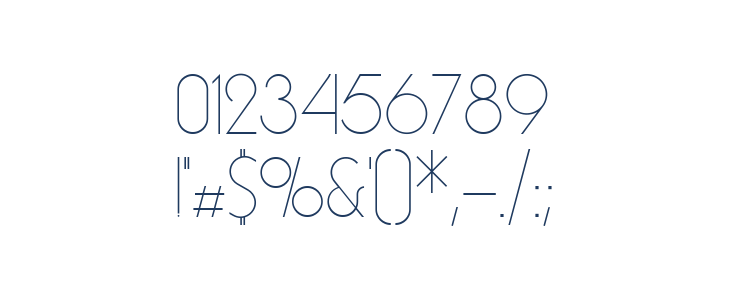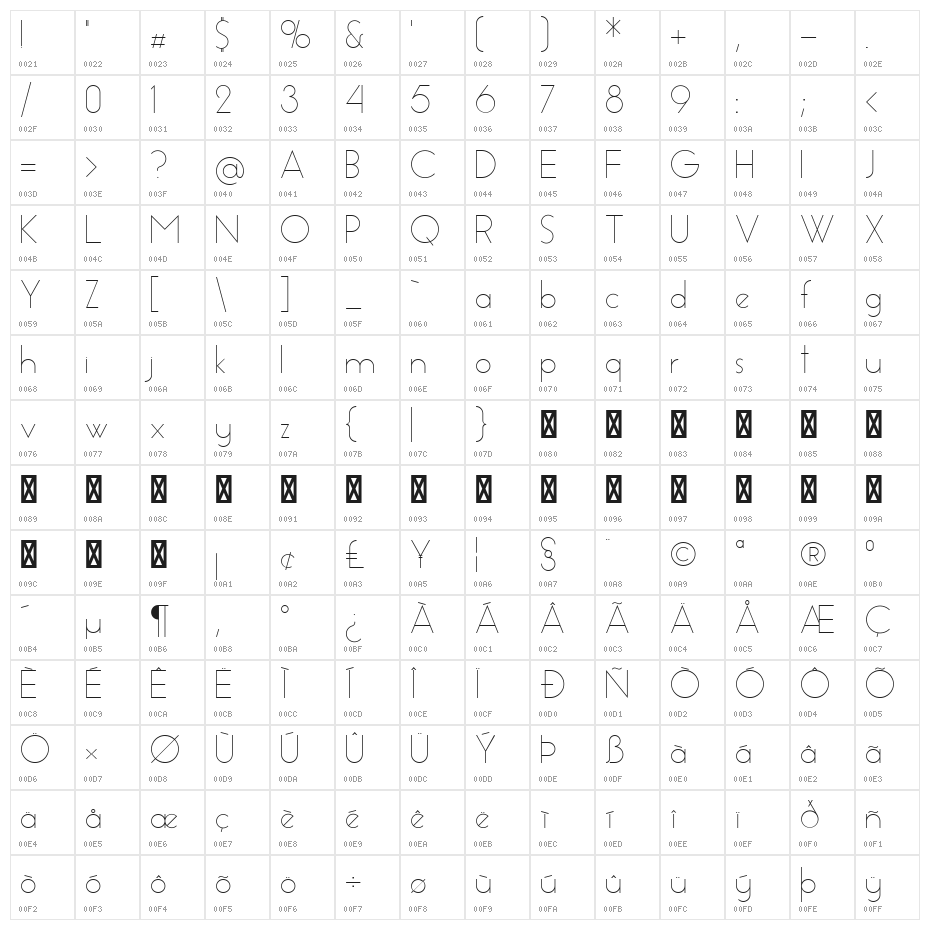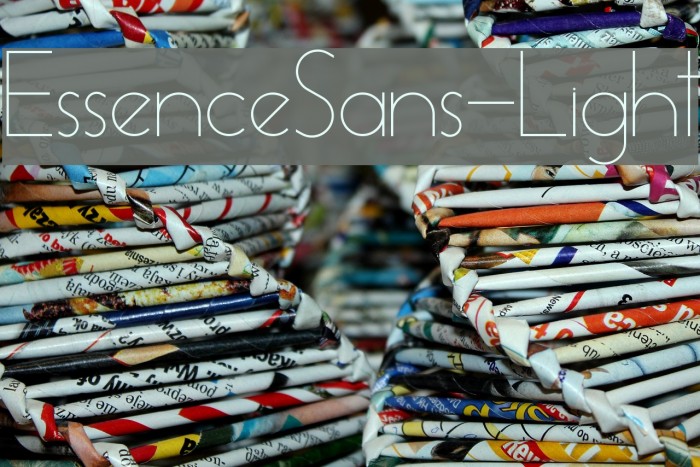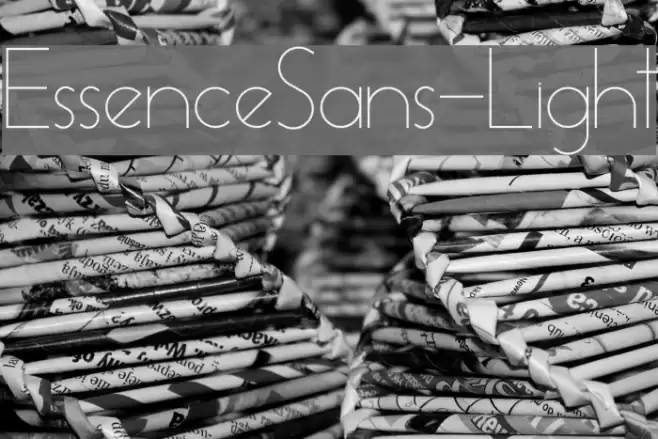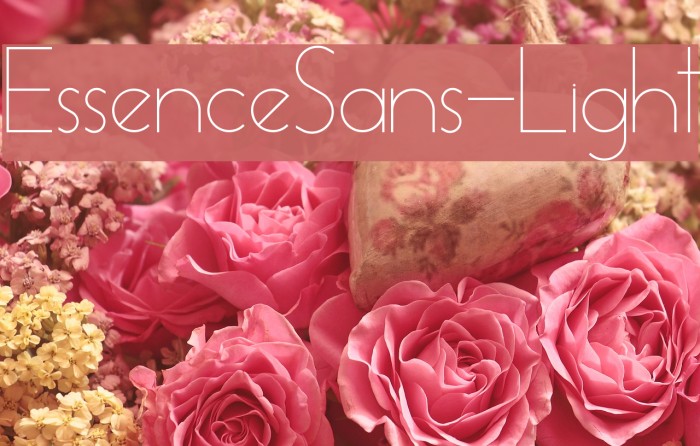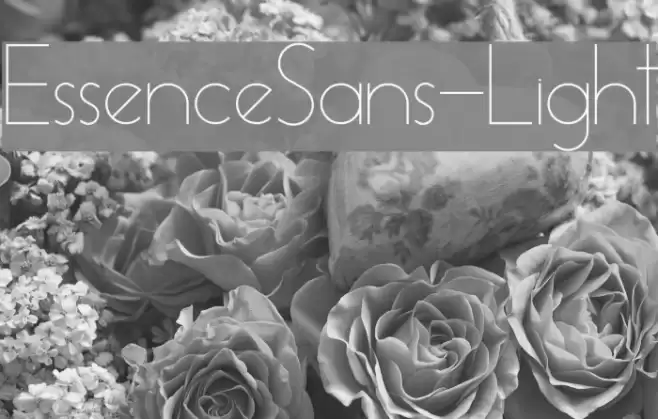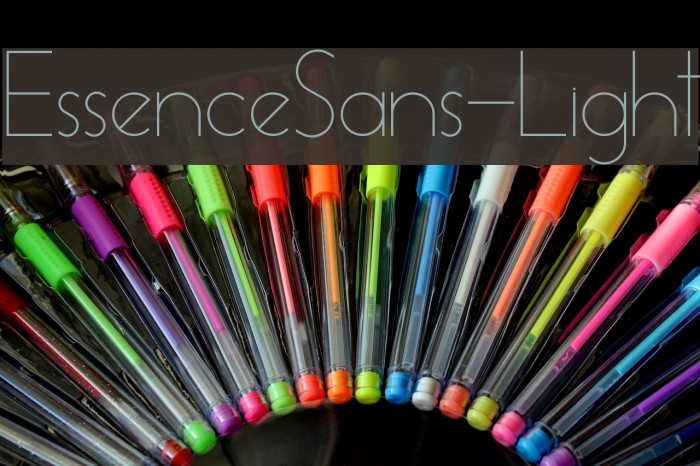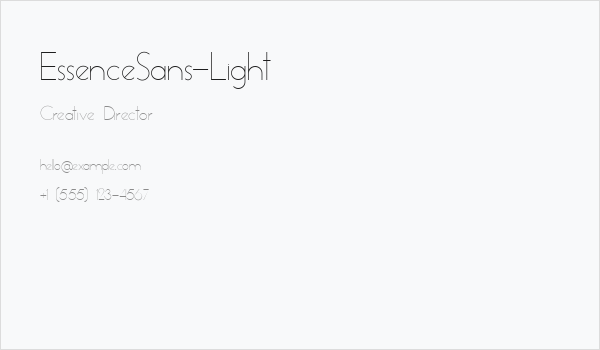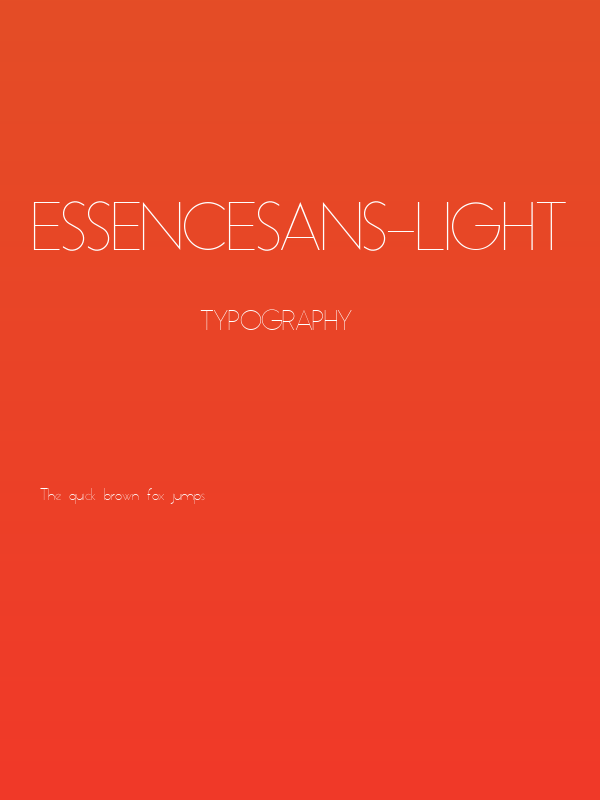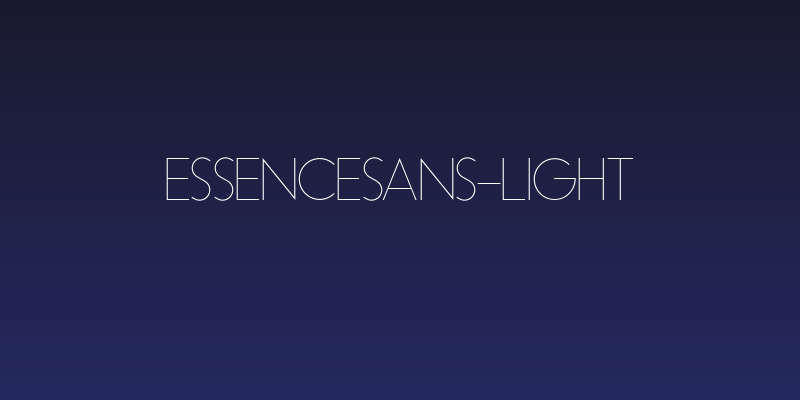
EssenceSans-Light Font
EssenceSans-Light Description
This font features a sleek and minimalist design, characterized by its thin, uniform lines and geometric shapes. The uppercase and lowercase letters maintain a consistent height, contributing to a harmonious and balanced appearance. The numerals are clear and legible, with a modern aesthetic that complements the overall style. Special characters are elegantly integrated, maintaining the font's clean and sophisticated look. This font's simplicity and clarity make it highly versatile for various design applications.